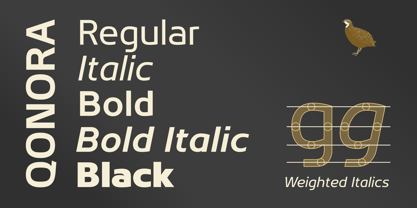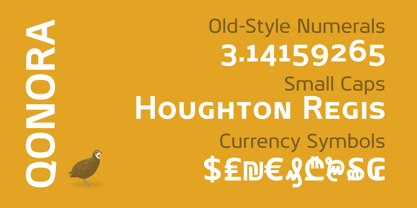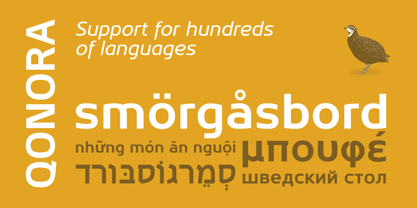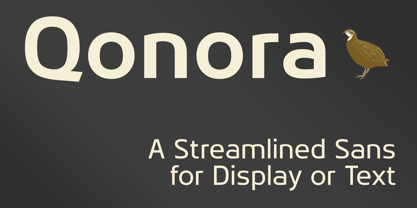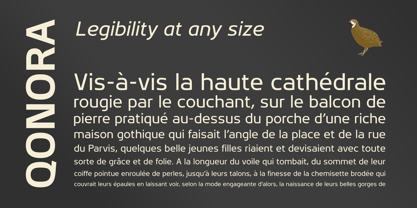
The Qonora Font Family was designed by Charles Casimiro and published by Charles Casmiro Design. Qonora contains 5 styles and family package options. More about this family
Qonora is a sophisticated sans-serif typeface designed with a focus on geometric precision and exceptional legibility. By blending clean, modern lines with subtle humanistic touches, Qonora streamlined, spurless design achieves a balance between professional authority and approachable warmth. While many geometric sans-serifs feel rigid or cold, Qonora introduces a refined softness to its forms. Its design prevents “visual clogging,” making it particularly suitable for smaller sizes. Its generous x-height and clear distinction between similar characters make it an ideal choice for digital interfaces where clarity is paramount. The Qonora family is built to handle complex typographic tasks with ease: Five Distinct Forms: Ranging from a delicate Regular to a commanding Black, providing a clear visual hierarchy. True Italics: Because they are drawn independently, the italics are subtly distinct from their regular forms. They’re carefully weighted to counter distortions introduced by simply slanting. High Contrast & Legibility: Optimized for high-resolution displays and print, ensuring a smooth reading experience. Full Character Set: Includes a comprehensive range of glyphs, punctuation, and support for hundreds of languages. Alternate forms include small caps and old-style numerals.